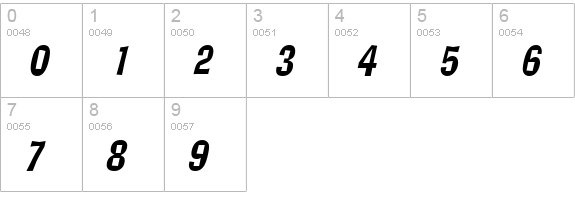
Alor Narrow Condensed Italic is a distinctive, condensed-width, italic variant in the Alor typeface family \xE2\x80\x94 well suited to design and typography projects.
Alor Narrow Condensed Italic font is a sleek and modern typeface that exudes sophistication and style. With its condensed design and elegant italicized slant, this font is perfect for adding a touch of flair to any project. The narrow spacing of the characters gives it a clean and polished look, making it ideal for use in a variety of design applications. And the best part? Alor Narrow Condensed Italic font is available for free download at FontsMarket.com! Whether you're working on a professional project or a personal creative endeavor, this font is sure to elevate your designs and make a lasting impression. Don't miss out on the opportunity to enhance your work with the beauty and versatility of Alor Narrow Condensed Italic font - download it for free today!